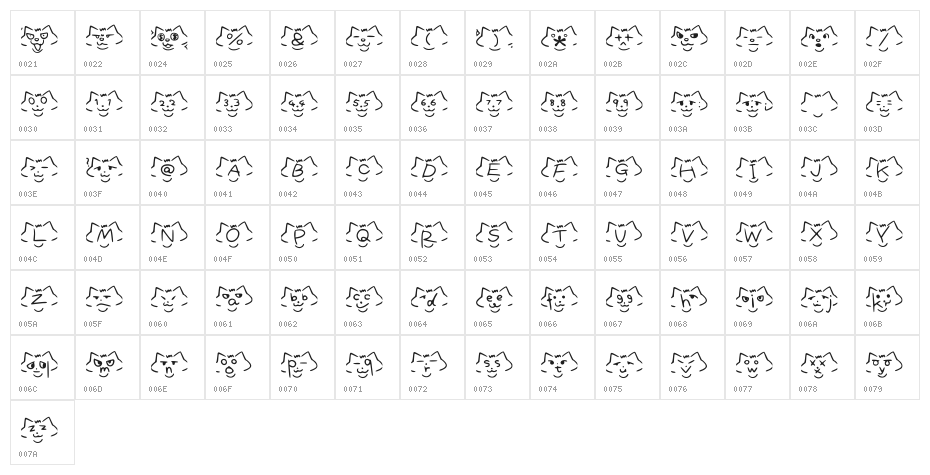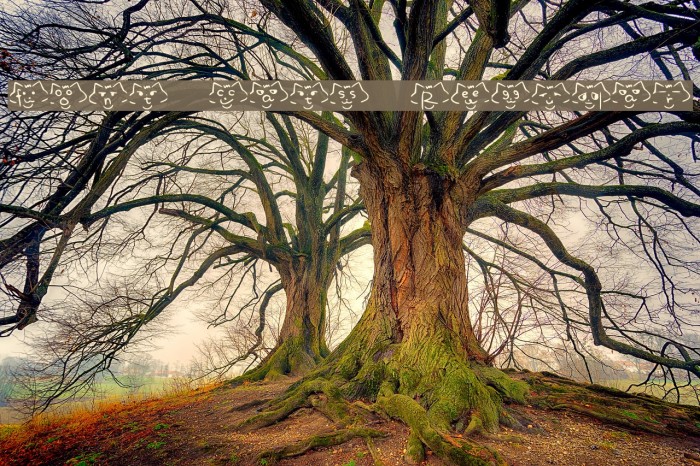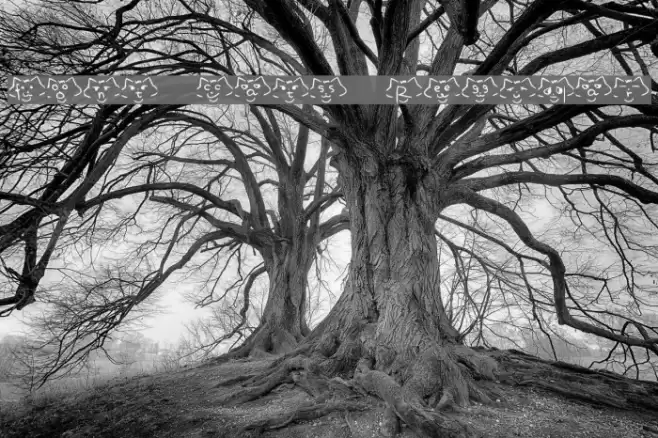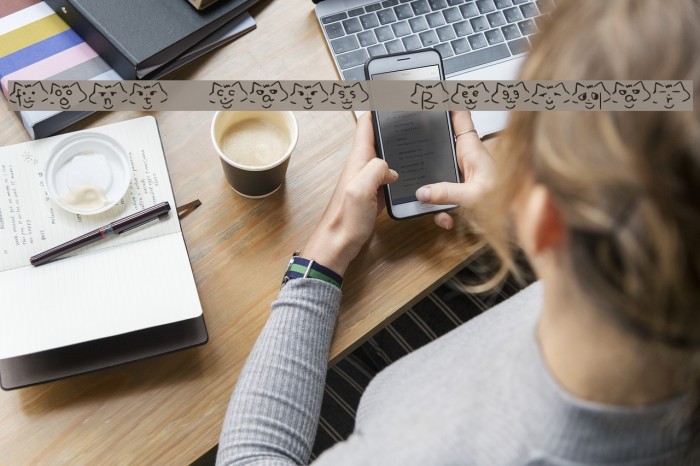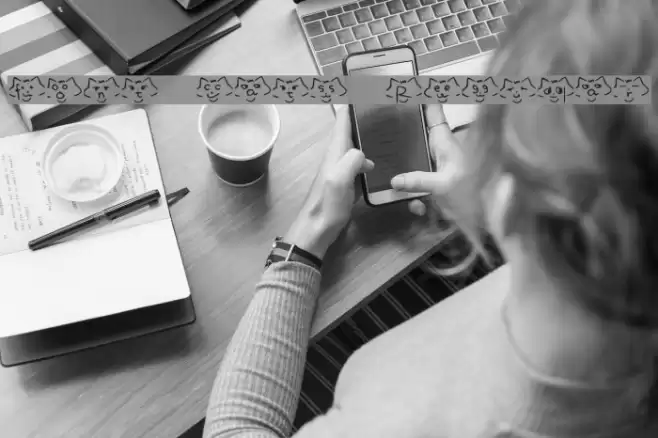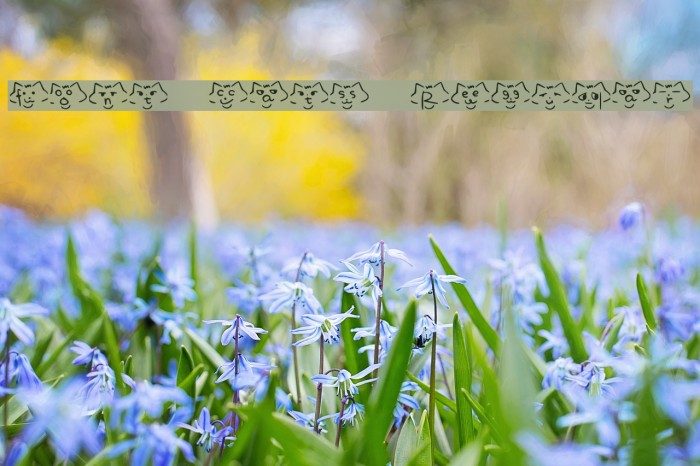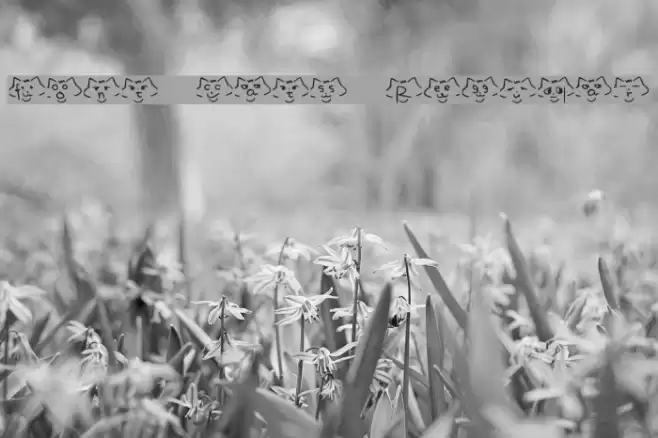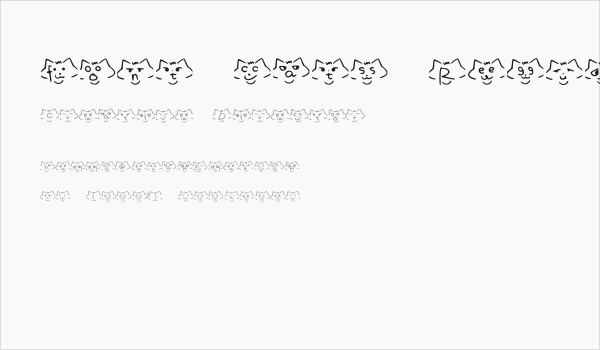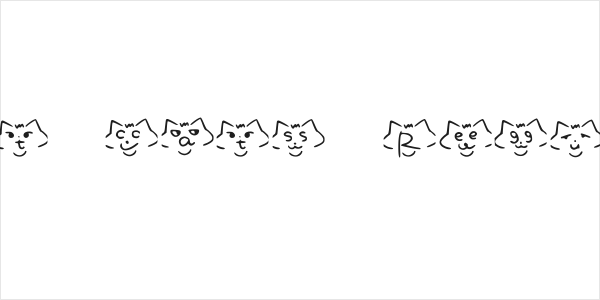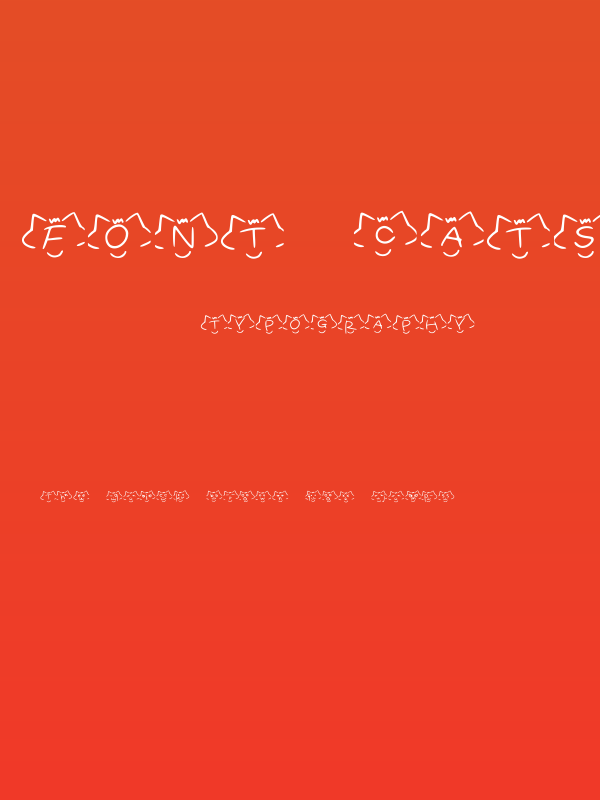
font cats Regular Font
font cats Regular Description
This playful and whimsical font features characters designed with cat faces, incorporating feline elements such as ears and whiskers into each letter and number. The unique design adds a sense of fun and creativity, making it ideal for projects that require a light-hearted and engaging aesthetic. The font maintains a consistent style across uppercase, lowercase, and numerical characters, ensuring readability while retaining its distinctive charm. Each character is crafted with attention to detail, capturing the essence of a cat's playful nature. The special characters also follow this theme, adding to the font's cohesive and thematic appeal.
| Proposed Projects | Ideal for children's books, pet-related branding, playful invitations, and creative posters. |